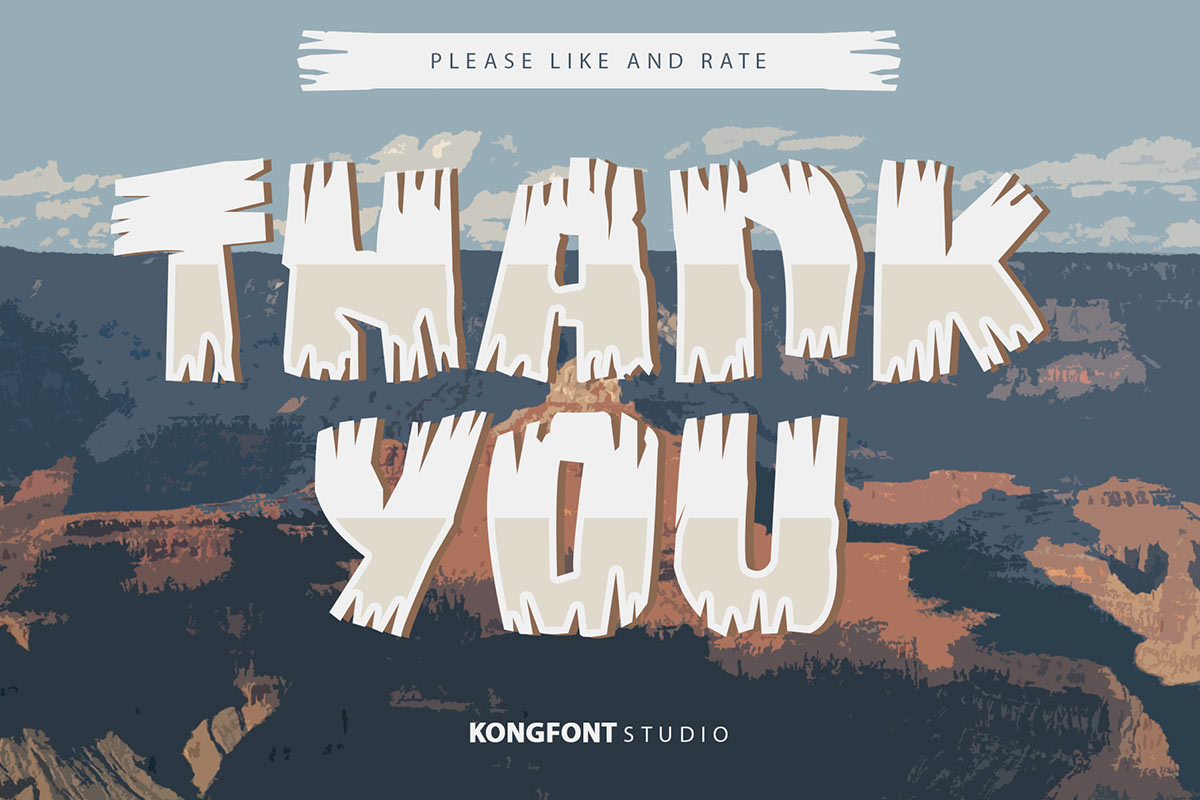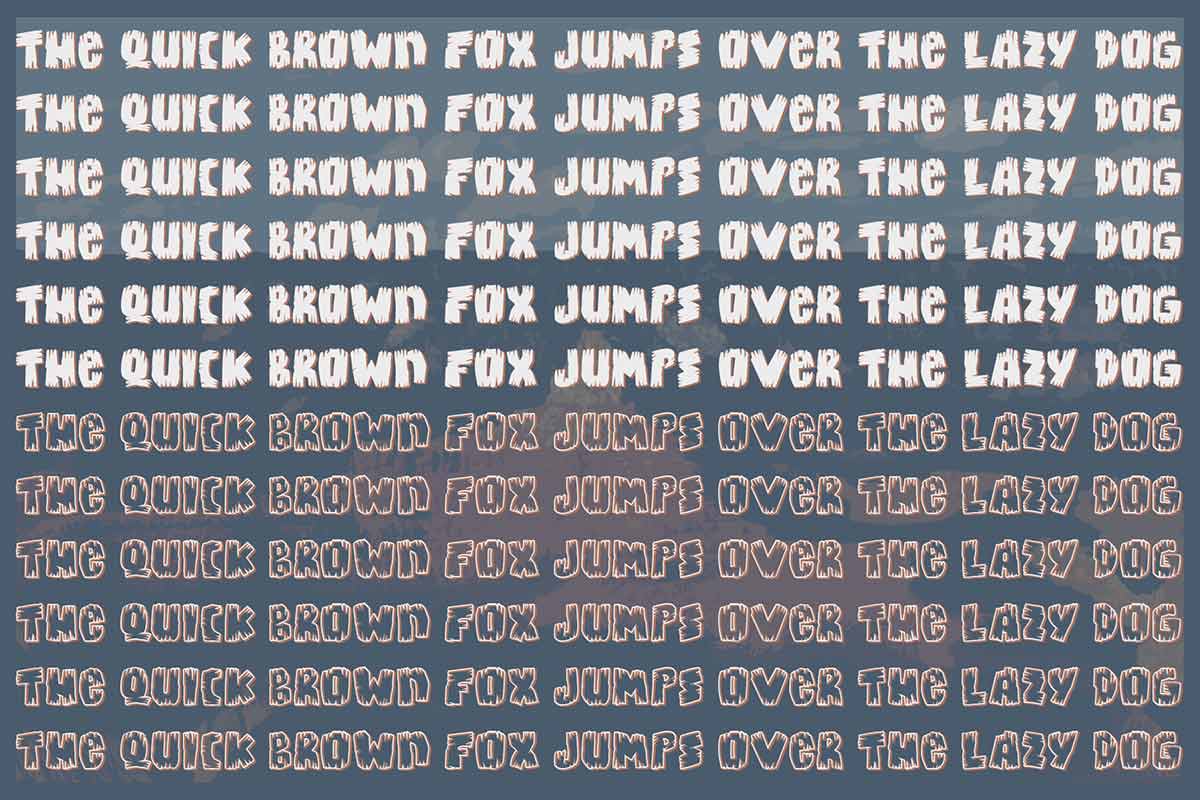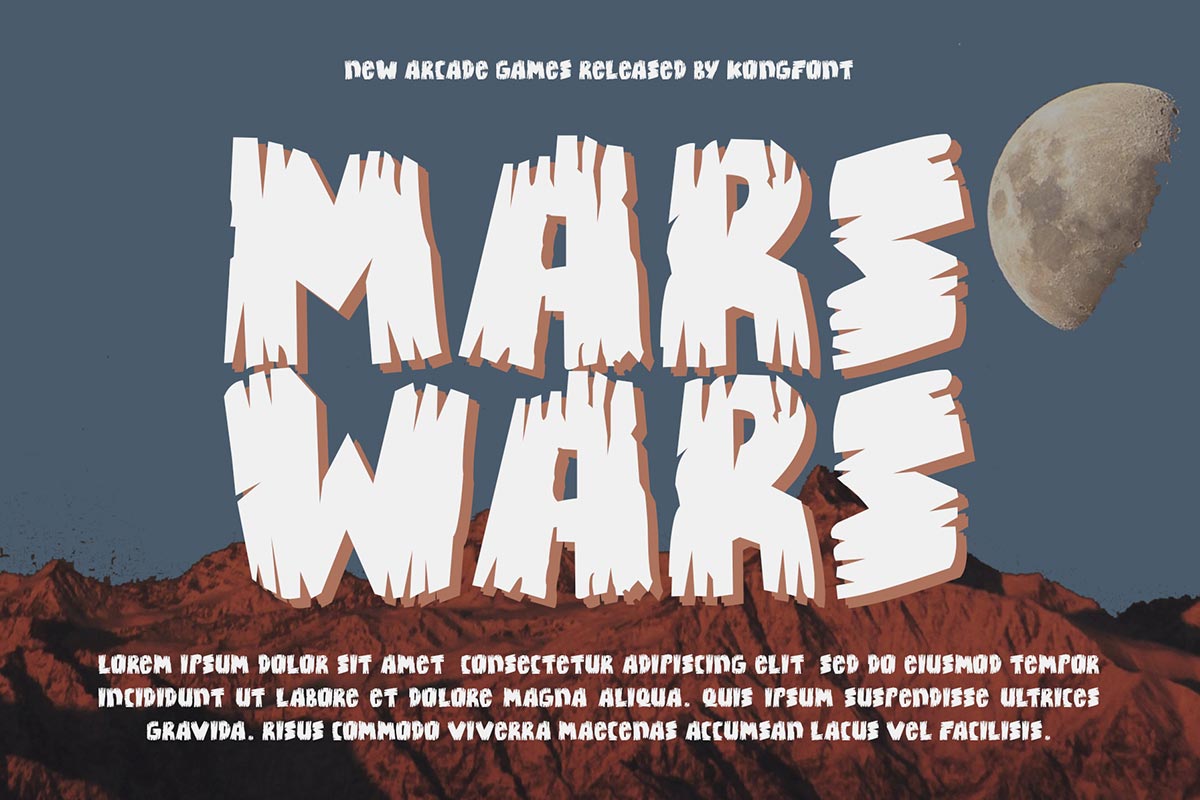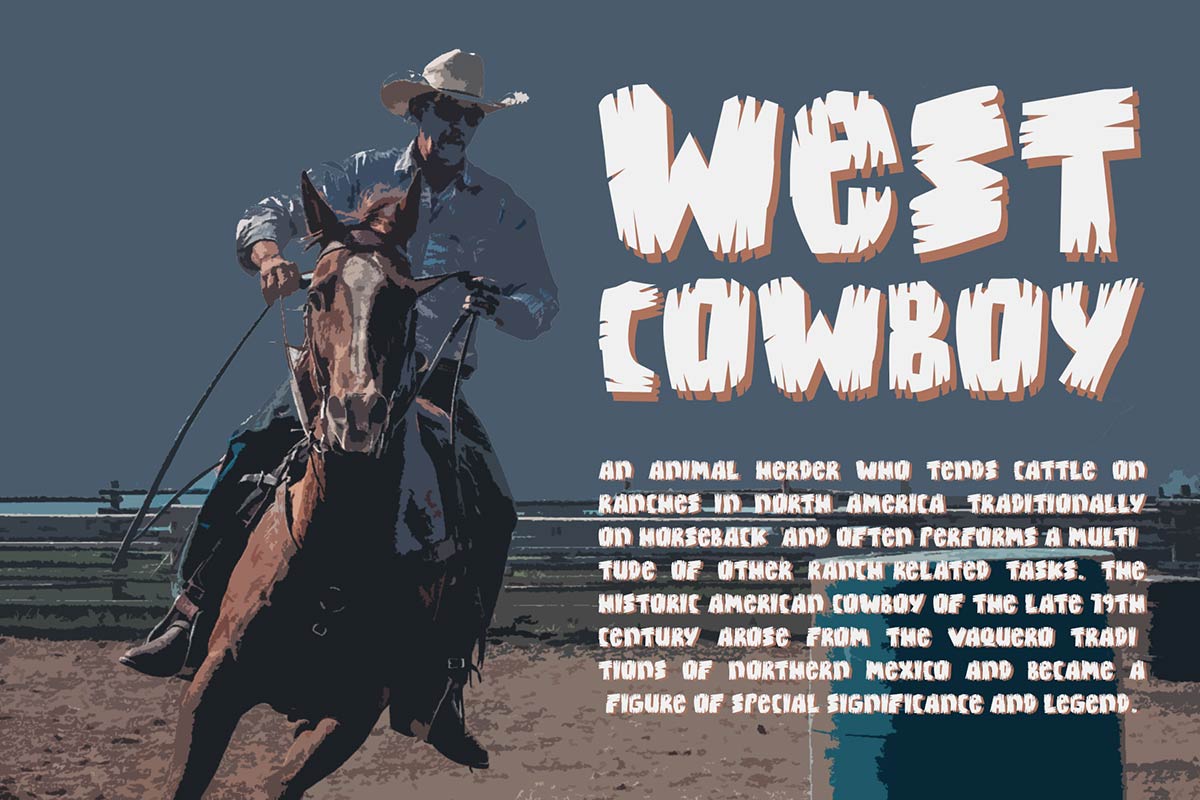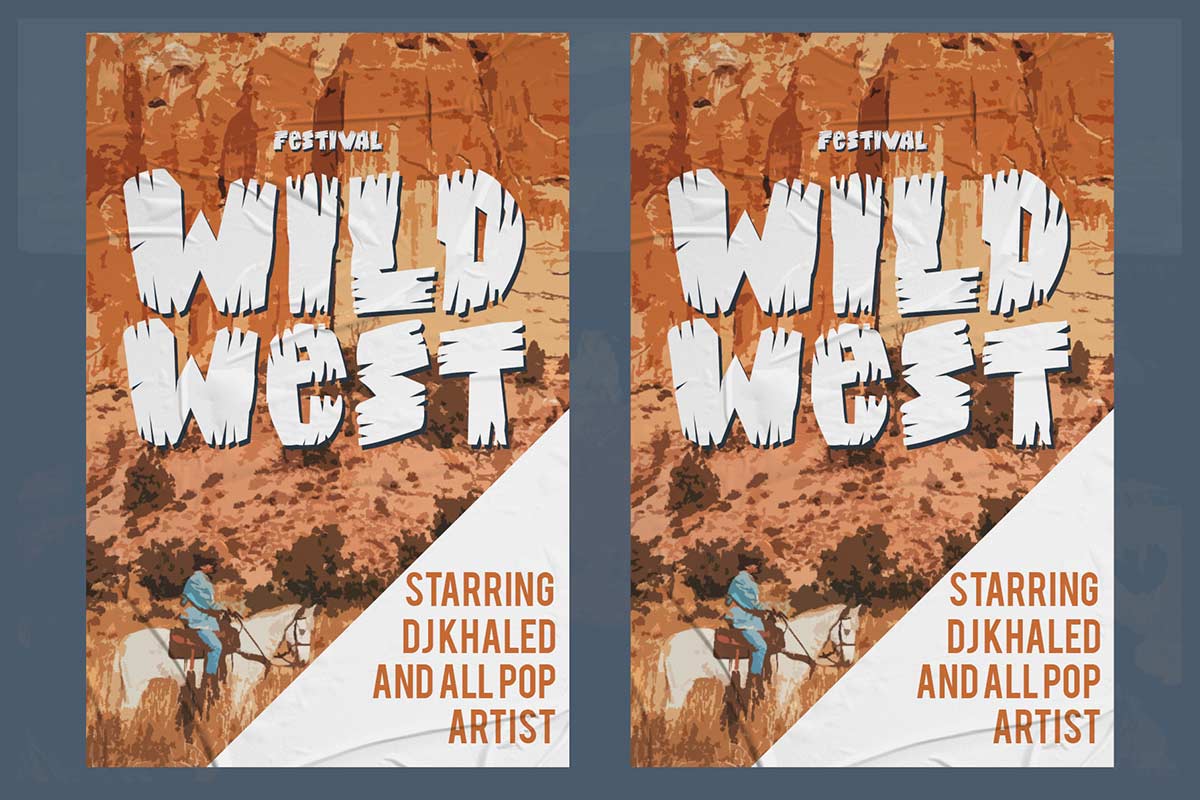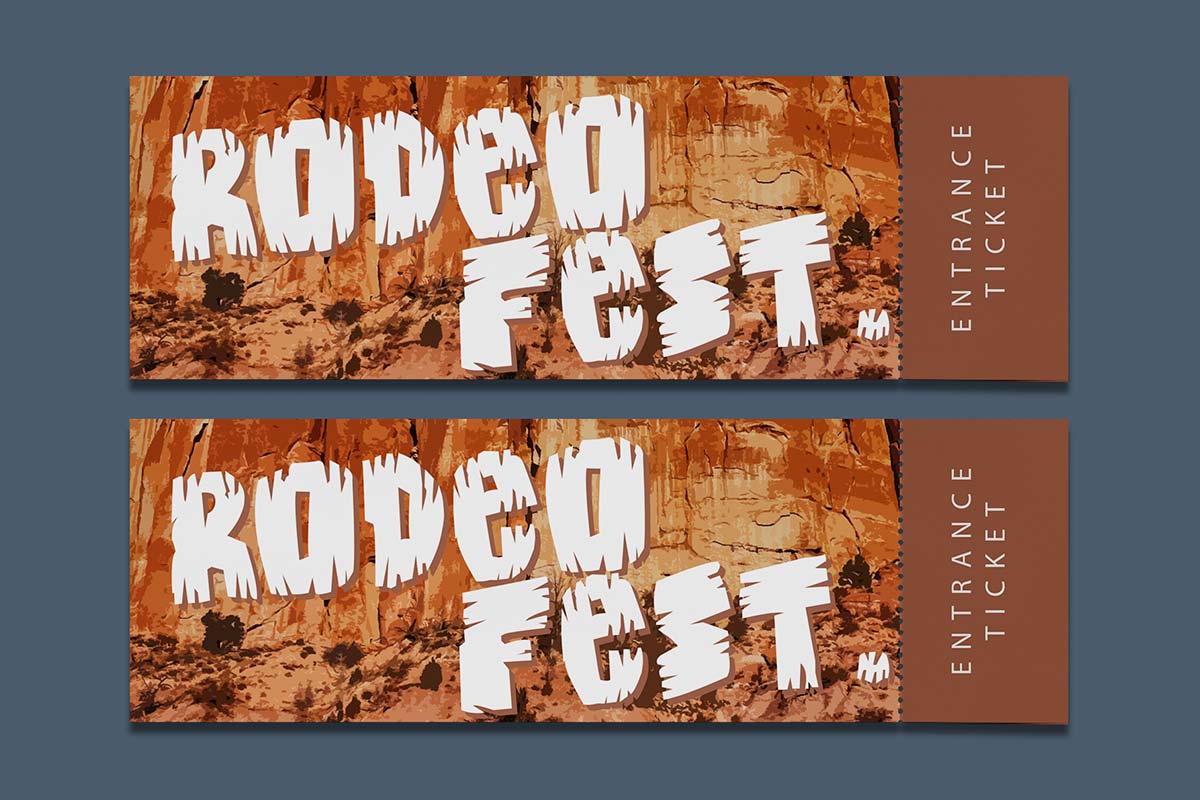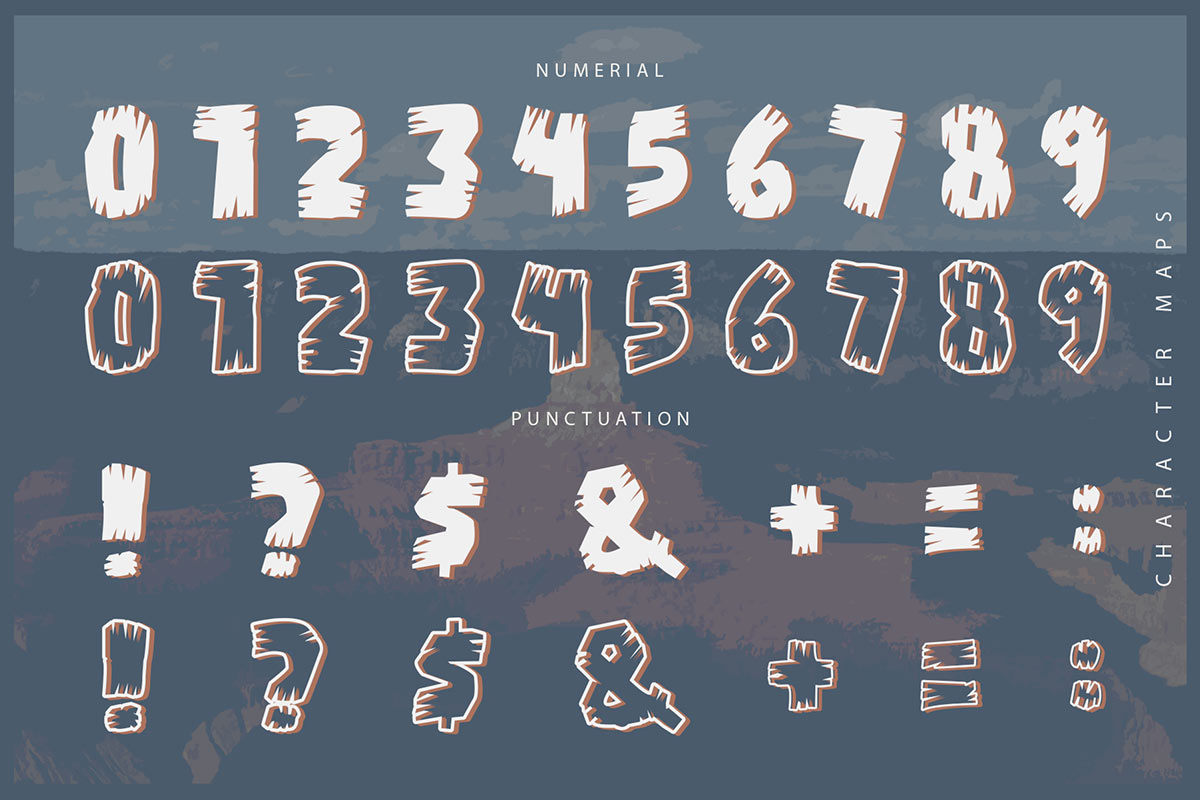
Bongus Font Bongus Modern Display Font was created to present a simple, fun, and cute impression to anyone who sees it. Each letter can be distinguished easily. People who read texts using this typeface do not have to try hard to read and understand them. As the name implies, Bongus Modern Display Font is perfect for use as a poster containing product needs. This font is also very suitable when used for clothing item designs. This is because of its simple and cute shape. This type of font can be printed in small or large sizes and still looks good up close or from a distance. For people who like simplicity and do not like the appearance of a busy design, Bongus Modern Display Font will be a good choice. This font is also suitable for use as a digital font, such as in a video, movie title, and displaying on social media. Our Display & Futuristic font collection is compatible to use as; Figma fonts, Canva fonts, Freepik Fonts, and Adobe Fonts. They also work as Windows Fonts and Apple Fonts. For your social media needs, you can use and install fonts in our collection of Espot & Futuristic fonts to use as Instagram Fonts, Facebook Fonts, and Twitter Fonts.